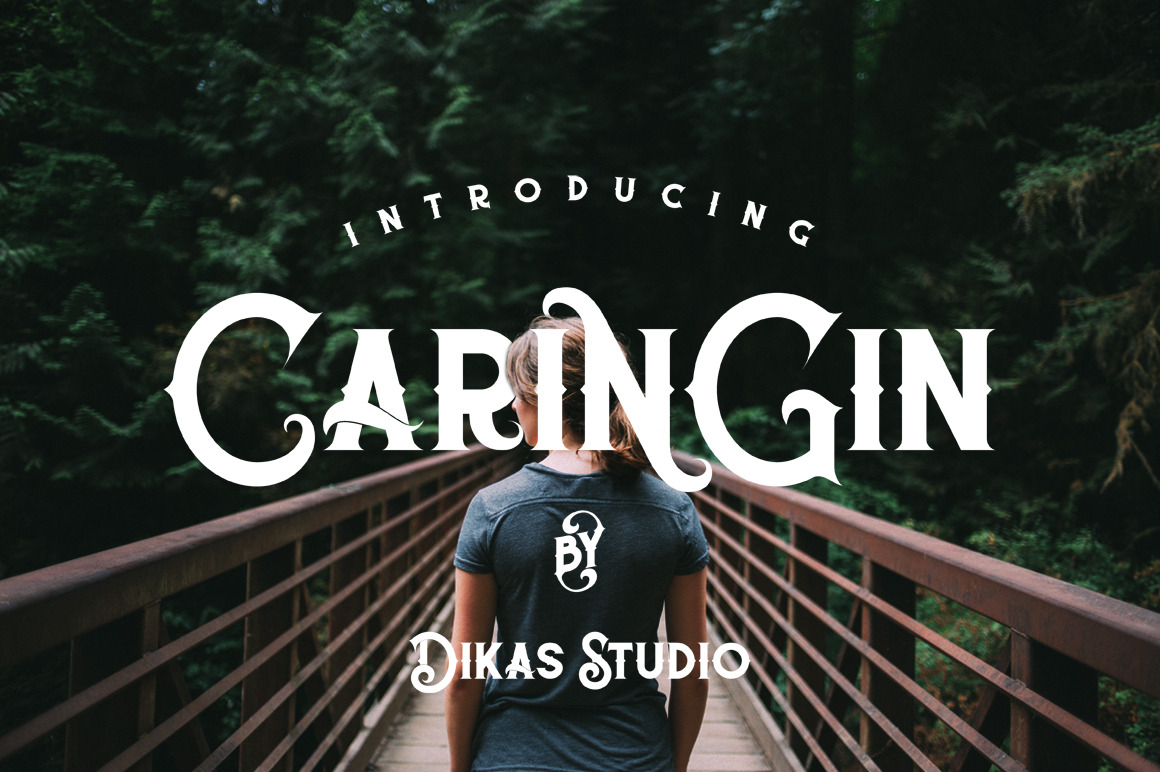
Caringin Typeface
Caringin is all caps font with vintage style. You can mix any alternate character, stylistic alternate and swashes, its very helpfull to make this font look stylish. Caringin is perfect to create any your vintage design project such us branding, logos, product packaging, invitation, qoutes, t-shirt, label, name card, badge, poster etc.
Lowercase
Punctuation and Number
Multilingual Language
Alternate Character
Stylistic Set 01
Ligature
Swashes and Catchword